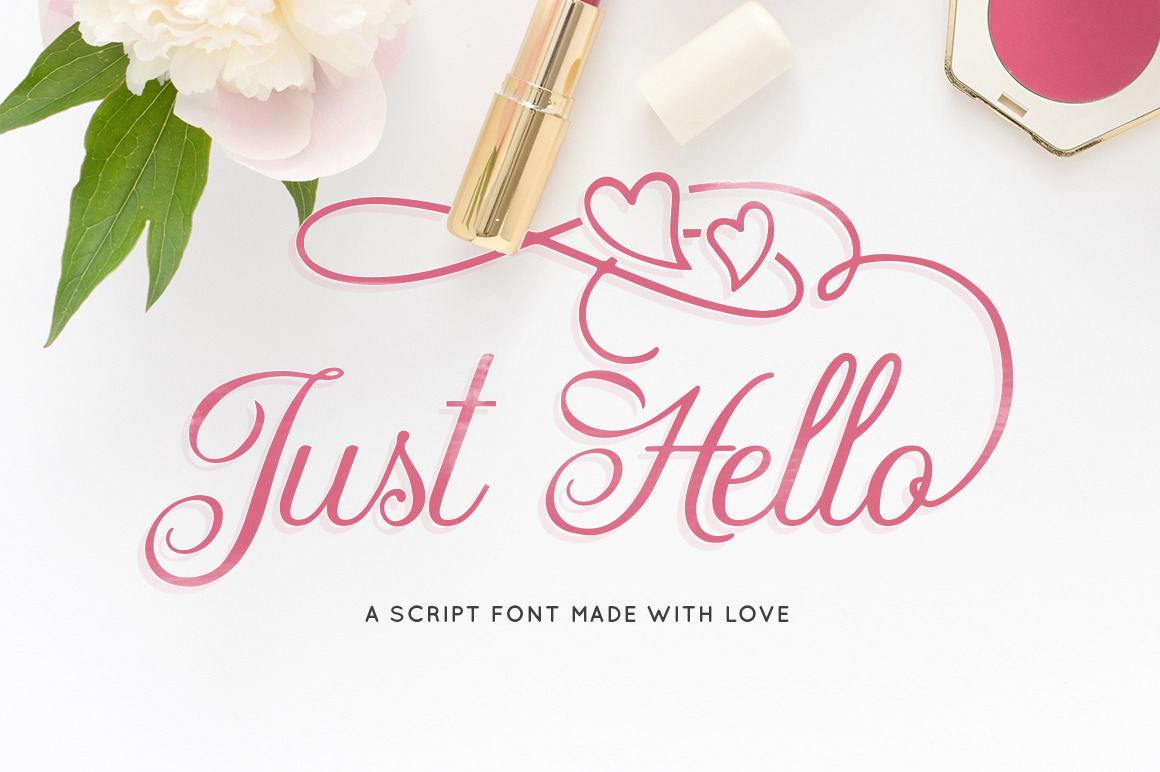
Just Hello Script Font
Introducing the beautiful NEW Just Hello Script Font. To launch this new product we have discounted the retail price to just $16!! All characters are 100% accessible, using PUA encoding. This means anybody can access all swirly characters shown in the previews above, WITHOUT special design software.